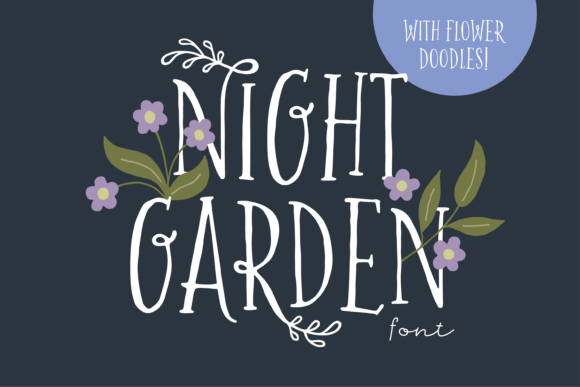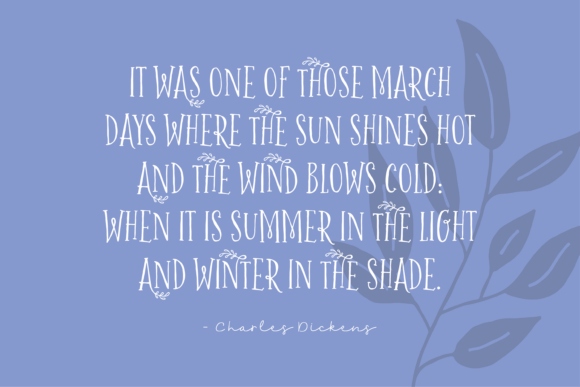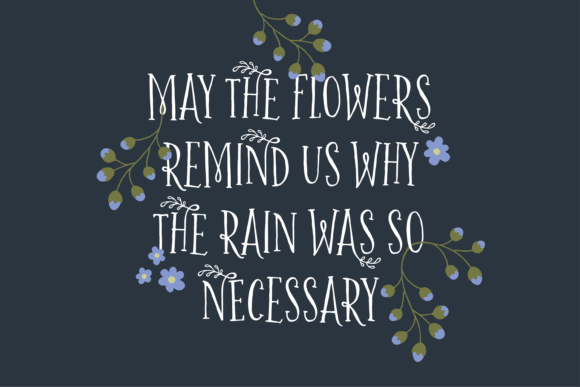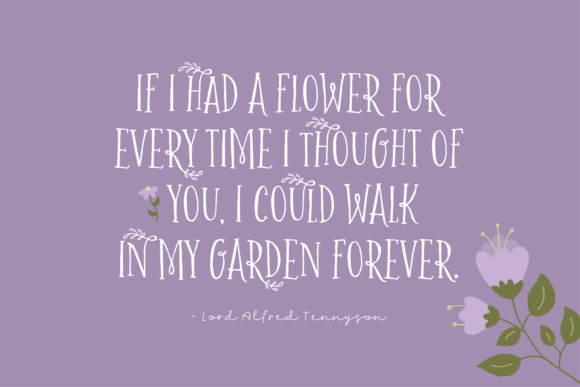
Night Garden Font: A Whimsical Display Font + Cute Flower Doodles!
About the Night Garden Font
Add a touch of class to your work with the Night Garden Font, a truly exceptional typeface. Night Garden is a whimsical, all-caps font that includes several nature-inspired ligatures and alternate characters. Ligatures will appear automatically in programs that support OpenType fonts and have the feature turned on. Also included is a bunch of cute flower doodles to brighten up your designs!
Night Garden is ideally suited for headlines, short text blocks on posters, and branding applications where a playful, whimsical feel is desired. Its charming character works well for children’s products, invitations, and eco-conscious brands. However, the all-caps nature and decorative elements make it unsuitable for body text or UI elements requiring high readability.
Pairing Night Garden with a clean sans-serif font like Helvetica or a simple serif like Garamond provides a strong contrast, balancing the whimsicality of the display font with a legible and sophisticated text font. For a more playful feel, consider pairing it with a rounded sans-serif such as Gill Sans.
The overall personality of Night Garden is lighthearted and friendly, with a touch of vintage charm. Its decorative elements lend themselves to projects that evoke a sense of fun, nature, or handcrafted quality.
Night Garden Font Usage Examples
Night Garden Font Example